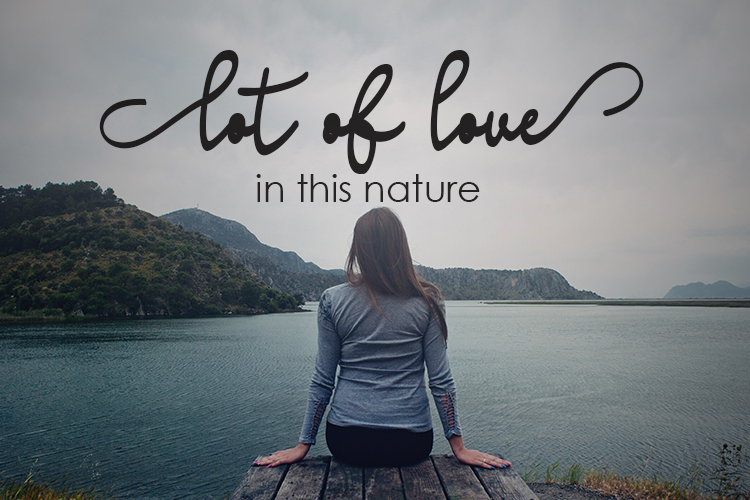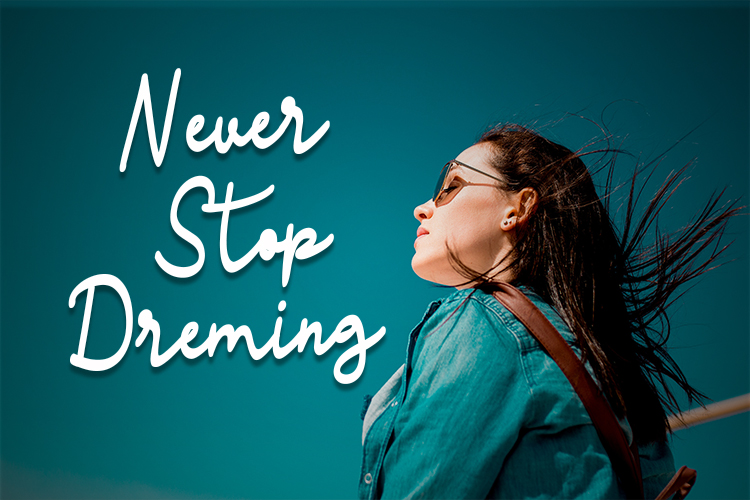
Signatria Handwritten Font
Introducing of our new product the name is Signatria a Chic Letter Font inspired by modern script style this font is a fun theme very good for display, tshirt design, craft, quote sign, logotype and etc